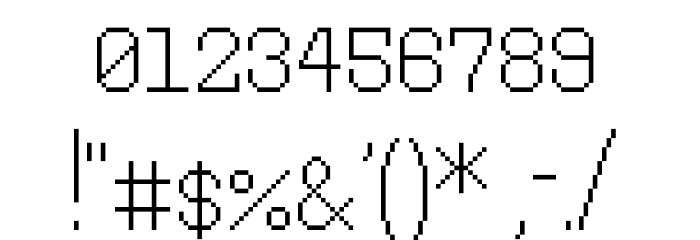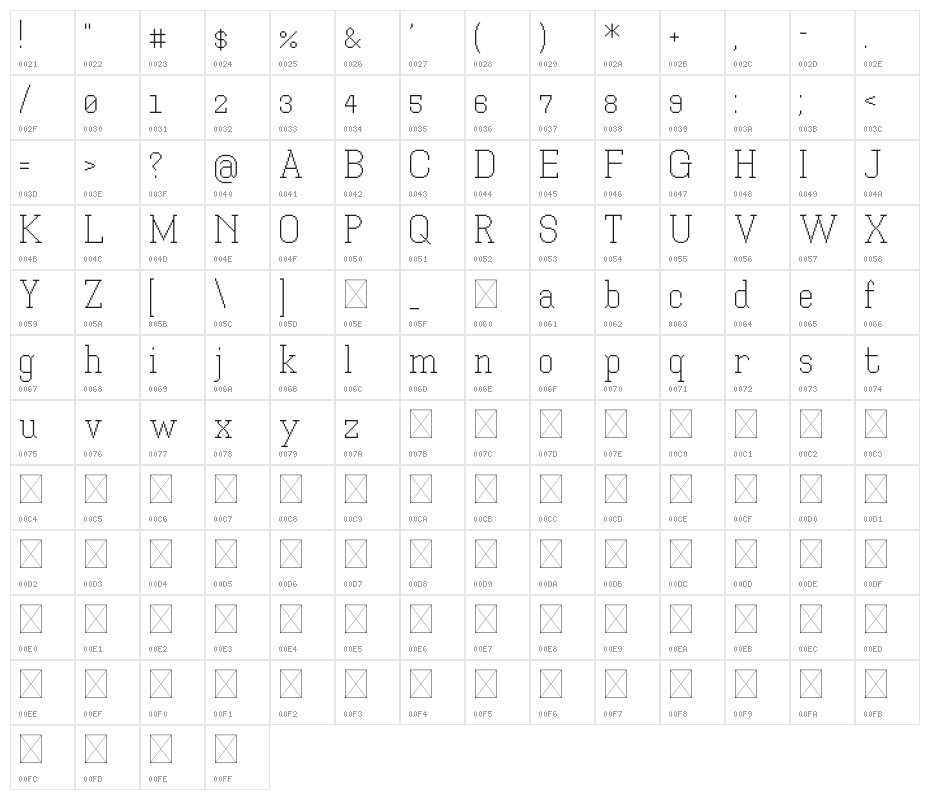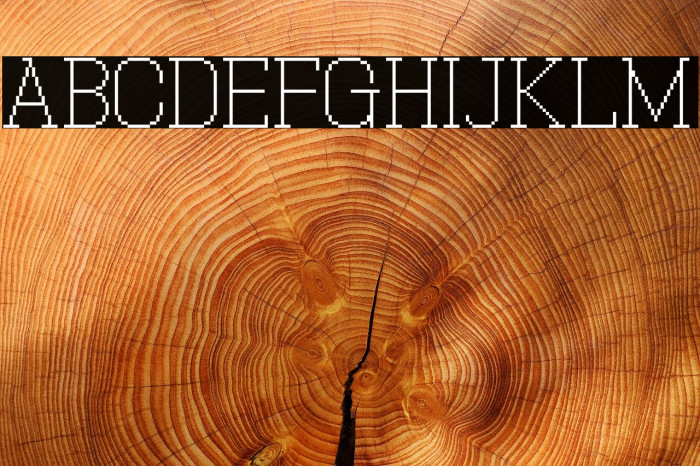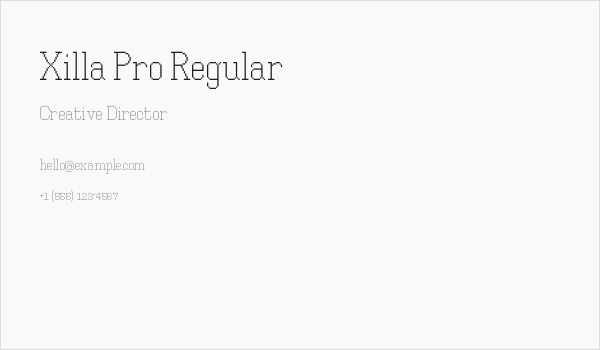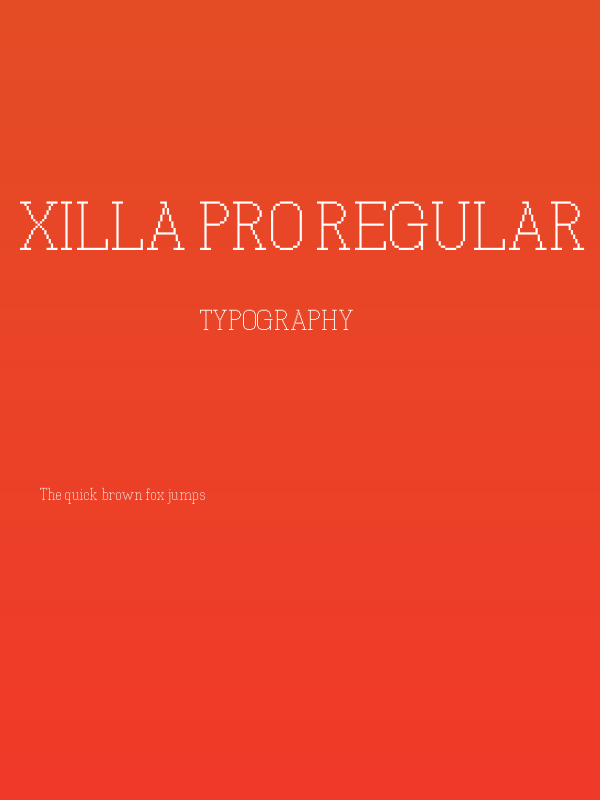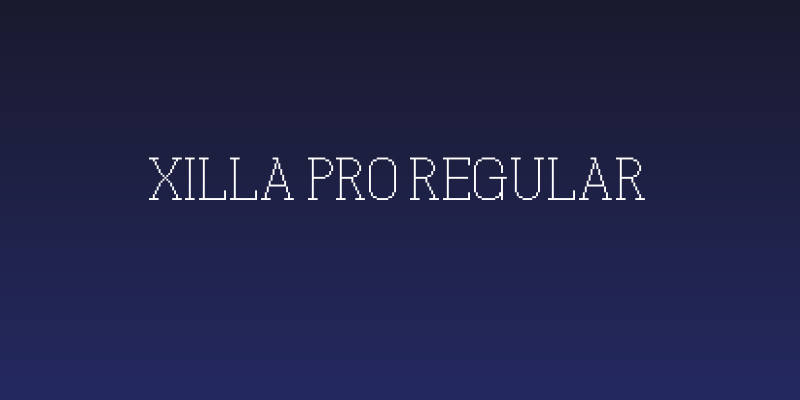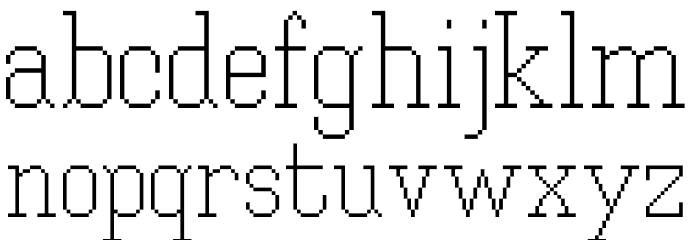
Xilla Pro Regular Font
Xilla Pro Regular Description
This font features a clean and structured design with a monospaced style, where each character occupies the same amount of horizontal space. The characters are crafted with a geometric precision, offering a modern and technical appearance. The uppercase and lowercase letters maintain a consistent height and width, contributing to its uniformity. The numerals and special characters are designed to match the overall aesthetic, ensuring readability and balance. The font's simplicity and clarity make it suitable for coding, technical documents, and any project requiring a clear and organized presentation.
| Use Case | Coding, Technical documents |
| Proposed Projects | Perfect for coding environments, technical documentation, data tables, and any project requiring precise alignment. |